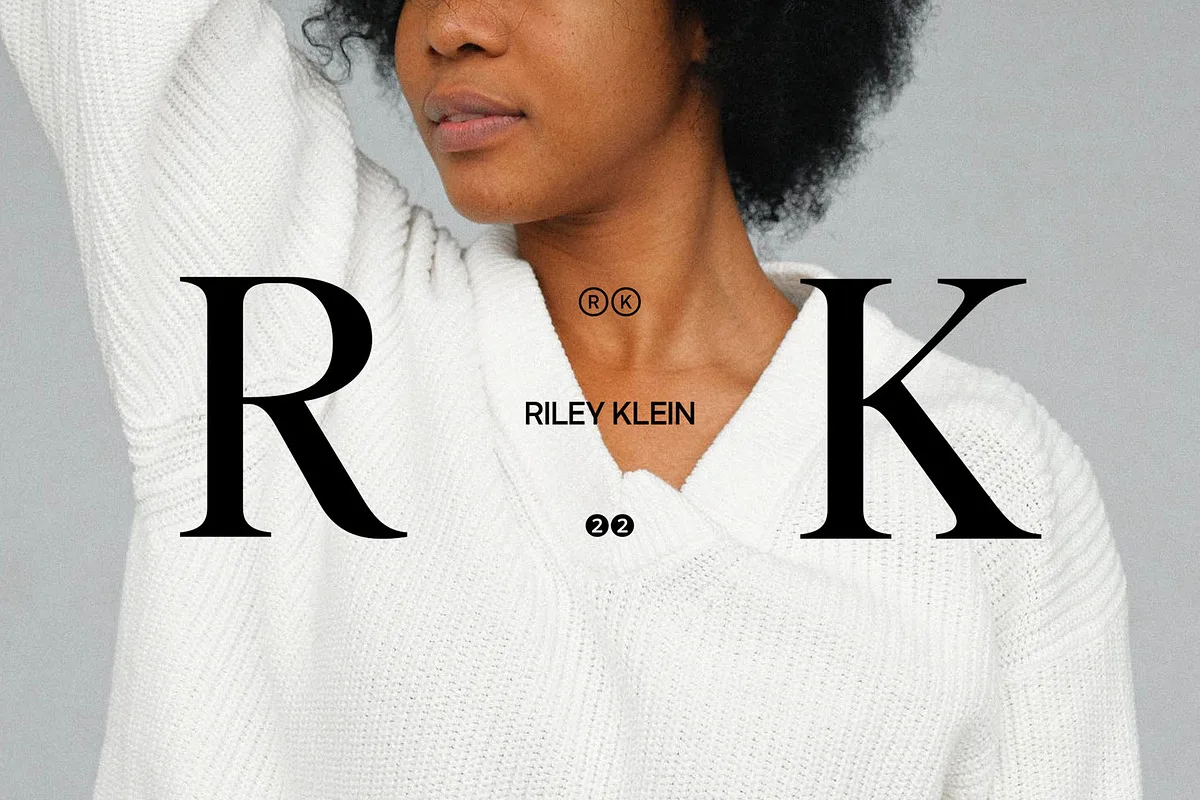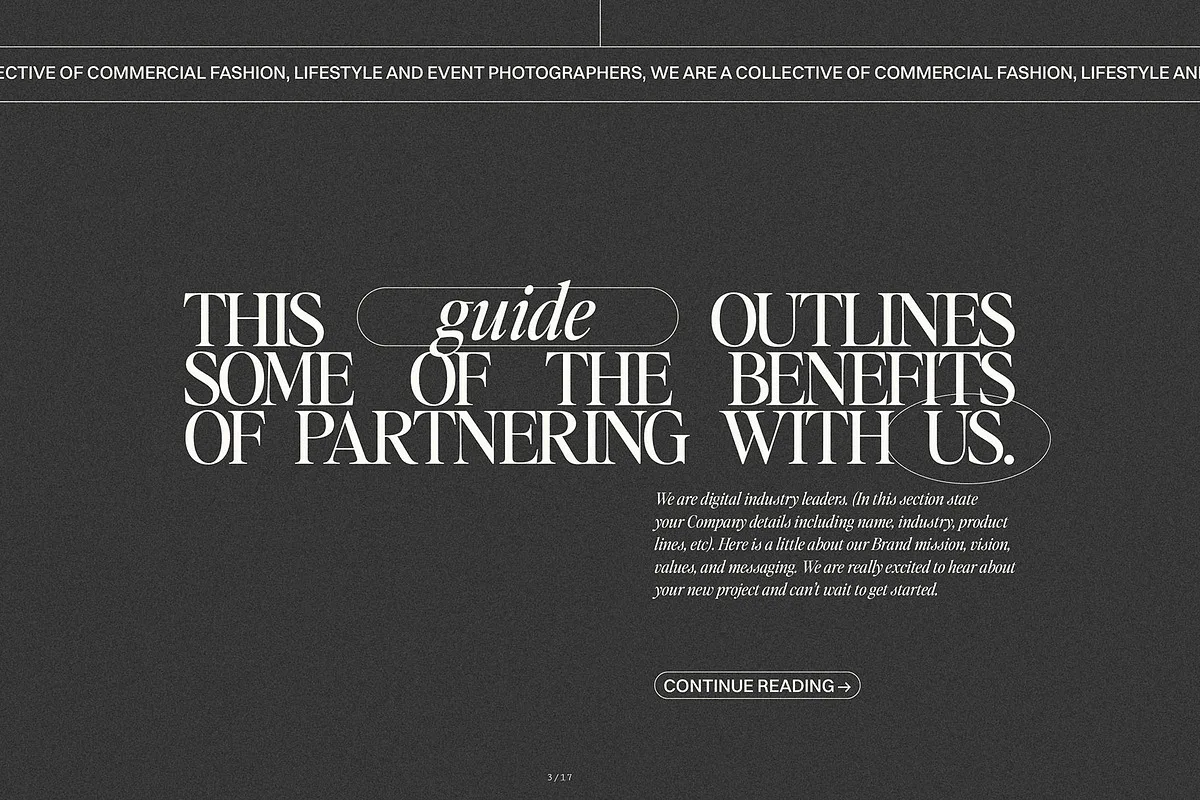
Editors Note is a brand new editorial serif font with all the clean lines, tight curves, and trendy minimalist vibes! It is perfect for logos, branding, non-editable invitations, packaging, products and canvas. It is a stunningly crisp upper and lowercase typeface that looks incredible in both large settings as a display text (think big headers, pretty quotes, calls to action, etc.
Includes:
- Uppercase & lowercase
- Numbers & punctuation
- Foreign language support